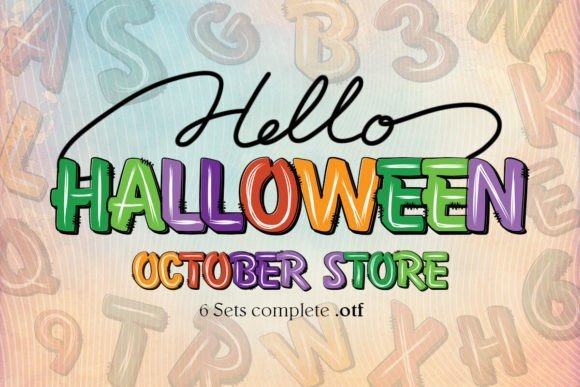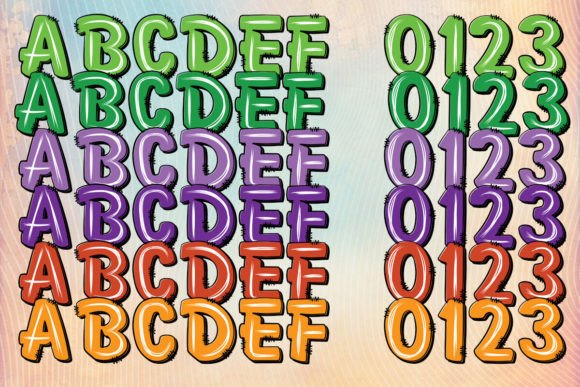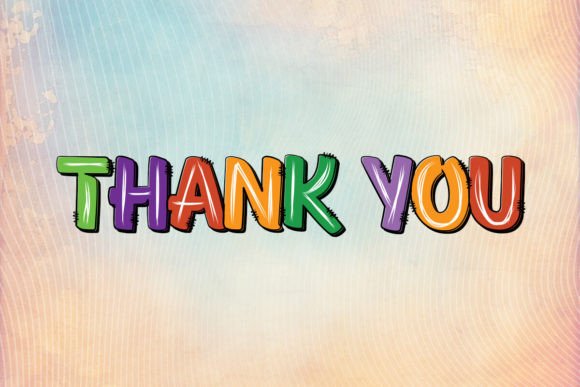
Get Ready for a Spooky Celebration with the Hello Halloween Font
As the crisp autumn air sets in and the leaves start to change, many of us can’t help but feel a sense of excitement and creativity. It’s the perfect time to break out the cobwebs, dust off the decorations, and get into the spirit of the season. For designers, this means one thing: it’s time to get creative with the Hello Halloween Font.
This enchanting font is a masterful blend of spooky and charming elements, perfectly capturing the essence of the holiday season. With its six dynamic color styles, the Hello Halloween Font is the perfect addition to any design project, from invitations and decorations to party favors and more. Whether you’re a seasoned designer or just starting out, this font is sure to add a touch of magic to your creations.
- Unique Characteristics: Hand-drawn, spooky, and playful design elements, perfect for Halloween-themed projects
- Font Style: Display font, with bold and regular styles available
Hello Halloween Font Review
I recently had the chance to work with the Hello Halloween Font, and I must say it’s a unique addition to any spooky-themed design project. Here’s what I think about it.
- Unique and playful design: The Hello Halloween Font is perfect for adding a whimsical touch to your designs, making it ideal for projects like invitations, posters, or social media graphics.
- Wide character set: The font includes a wide range of characters, including uppercase and lowercase letters, numbers, and special symbols, making it easy to use in a variety of contexts.
- Customizable: The font can be easily customized to fit your design needs, allowing you to adjust the size, color, and style to match your project’s tone.
- Not suitable for body text: While the Hello Halloween Font is perfect for headings and titles, it’s not ideal for body text due to its playful and informal nature.
- May not be suitable for professional designs: The font’s playful design may not be suitable for professional or formal designs, so be sure to use it sparingly or in combination with other fonts.
The Hello Halloween Font is a fun and creative addition to any design project. While it has some limitations, it’s perfect for adding a playful touch to your designs. With its wide character set and customizable options, it’s easy to use and versatile in its applications.
The “Hello Halloween Font” is commonly used in:
– Halloween-themed party invitations and decorations.
– Spooky-themed social media posts and graphics.
– Horror movie or TV show title sequences.
– Halloween-themed marketing materials and advertisements.